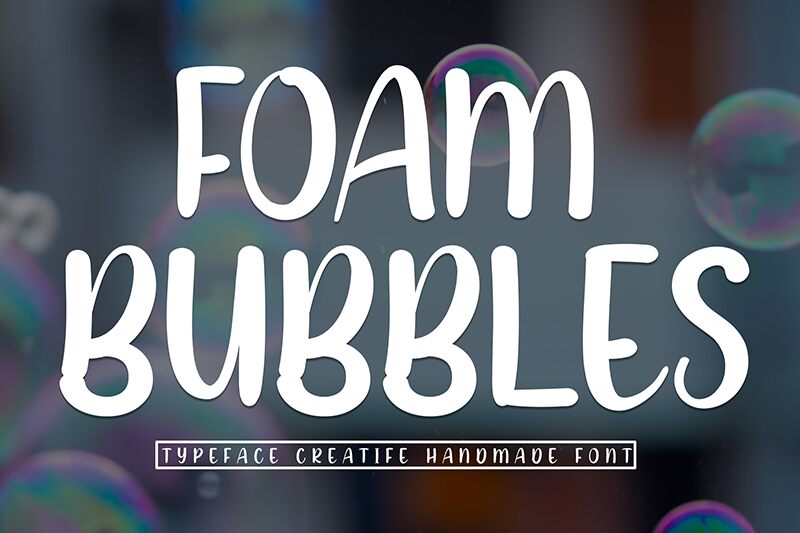
Foam Bubbles
Foam Bubbles font by Andi Moz is a brush-style typeface that exudes a lively character and friendly appearance. This free font features bubbly and casual writing where letters contain curved elements decorated with some strokes. The whimsical essence of the typeface can make any project in which it is used for smile.
Elegant yet simple, this font is perfect for signage, invitations, greeting cards, interior design decor elements, branding and labels, titles and headlines, web typography or UI/UX projects.